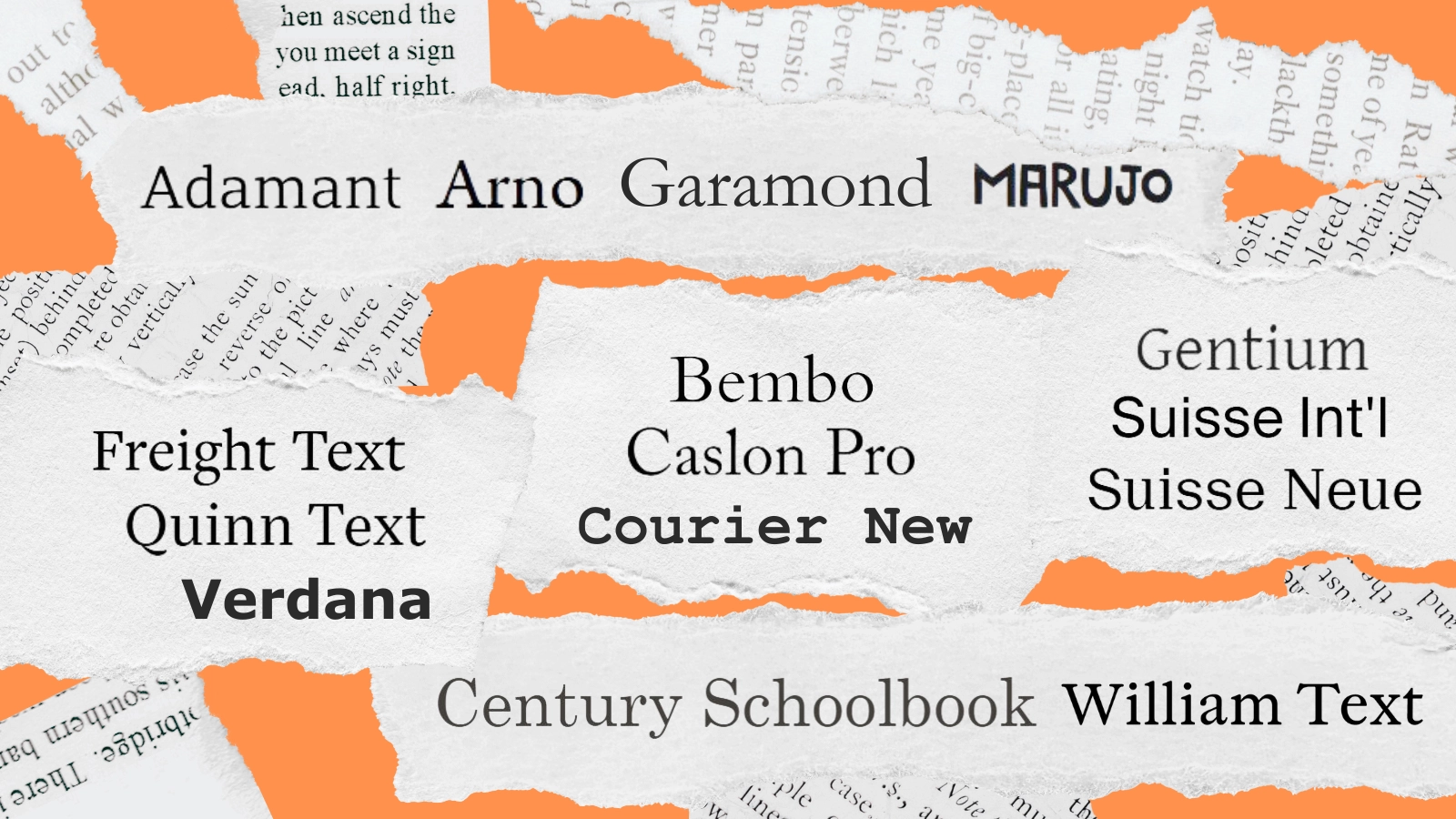
The best fonts for books
We’ve found the best fonts for book copy, recommended by designers and publishing industry insiders.
We all know the old saying ‘never judge a book by its cover’, but what about the text on its pages? Typography on cover design might get you to pick up the latest hardback or paperback, but if the text inside is illegible or inappropriate, you can’t enjoy it.
That’s why we’ve gathered the best fonts for book publishing, including several free fonts, to give you plenty of options (and, for aspiring ebook designers looking beyond the printed page, see our guide to free web fonts).
What to consider before choosing your book font
Imagine ‘War and Peace’ written in Comic Sans, a travel guidebook ruining the moment with Chiller, or a textbook typeset in 8pt Raleway Thin 100: all poor choices for their intended audiences. You need to consider what looks right for your reader, how much white space they need, and how modern the font should be.
“Our designers look to fit the chosen design intention, legibility at smaller point sizes if required for captions or smaller text, character support for global languages, character and uniqueness, modernness, and clarity (particularly looking at visually similar glyphs),” says William Collins, the Head of Creative Technical Operations at DK, which covers many different genres such as travel and food and drink. “In general, we have seen a shift toward more humanist sans-serifs for our interiors.”
Hadley Hendrix, an editorial designer who specialises in publication design and typesetting, has noticed accessibility is increasingly being considered by publishers: “In some books, I’ve noticed a subtle but growing trend toward fonts with higher x-heights, more open letterforms, wider letter spacing, and more geometric shapes, all contributing to better legibility and readability. I think this shift reflects a broader movement toward making books more accessible and easier to read in print and on screen.”
Booksellers, as the all-important step between publishers and readers, know that text counts beyond the cover. Print shouldn’t be visually overwhelming and cluttered on the page, but it also won’t be legible with too light or fine a stroke. It’s a balancing act, especially as printing costs for publishers have been on the rise in recent years, with increasing prices for paper, freight and energy bills, which understandably could lead many towards smaller font sizes (thereby making them harder to read).
Fortunately, we haven’t seen smaller text across the board, with legibility and a de-cluttered page still big considerations – a big sigh of relief for booksellers and readers.
“We've noticed that certain independent publishers, like Fitzcarraldo, Honford Star and Lolli Editions, are actually giving the text more white space for aesthetic reasons, at the risk of increasing the price to the consumer. Honford Star also has a nifty way of numbering pages,” says Dan Ross, Co-Founder of Storysmith bookshop in Bristol.
“In the 'Big 5' of the publishing world, Hamish Hamilton [a Penguin imprint] always gives the reader loads of space and set everything in a very considered manner. For example, Deborah Levy becomes associated in my head with the look of the words on the page.”
As for where to find your inspiration, Collins keeps an eye on internet trends: “I’ve started to see a lot of social media trends driving typographic choice; it’s now an important source of inspiration and creativity,” he says.
Now let’s get down to our picks of the book publishing fonts.
01. Adamant
Parachute Type Foundry’s Adamant is easy to read in small sizes, and is readily adaptable with six weights. It uses wide apertures to make letters more legible and open, and a high x-height (if this all sounds confusing, just use our typography glossary).
Designer Vedran Eraković, who’s also a typography professor, won a Granshan Excellence Award for this. Adamant works well at poster sizes, too, so it can adapt to book promotions.
02. Arno
“We use Arno in nearly all our books, and in the forthcoming ‘Ten Thousand Miles of Clouds and Moons’ anthology, although the typesetting was more magazine-style for that one,” says Anthony Bird, Co-Founder of Honford Star. “It’s a very classic looking font, and we didn't want something distractingly modern for interior text. We needed to choose a font that covered a wide range of languages.”
Arno was also chosen for ‘East London Food’, designed by Studio Thomas for Hoxton Mini Press, a photo-laden book of interviews and recipes; sans-serif font Sofia is used for headers and image credits, as a contrast. Arno, created by Robert Slimbach for Adobe, is inspired by 15th and 16th century humanist typefaces.
03. Bembo
Bembo is a publishing classic, created by Monotype in the 1920s, with many variants. Bracketed serifs and taller lowercase ascenders than upper case ascenders make this satisfying on the page.
With distinctive differences between often-confused characters like capital L, capital I and number 1, this is a practical but fun choice. The Marujo type family was inspired by outsider artist Arthur Bispo do Rosário.